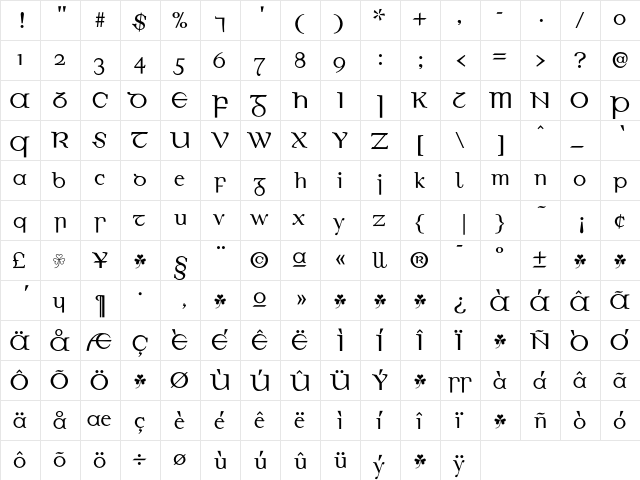
EirinnAsciiLL Regular Font Preview
EirinnAsciiLL Regular
Design Context for EirinnAsciiLL Typeface
EirinnAsciiLL is a composed and adaptable typeface that performs quietly and consistently across a wide range of design contexts.